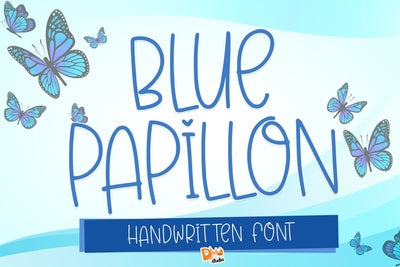
Blue Papillon - Cute Handwritten Font
Blue Papillon is a cute, a simple handwritten font. It's easy to use for crafters, makes your design more charming with its cuteness.
Blue Papillon has a Natural and girly style with minimal nodes, great for you who loves creating something cute and lovely crafts, designs, cutting, printing, social media posts, and much more!
- All in caps
- Numbers
- Symbols Punctuations